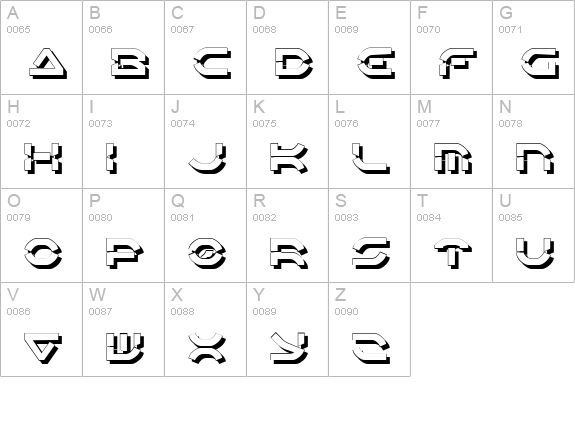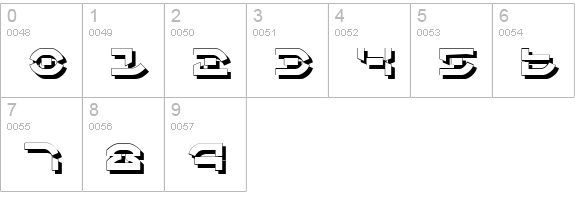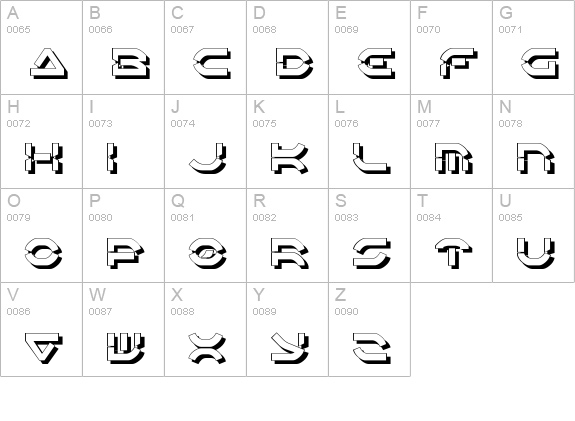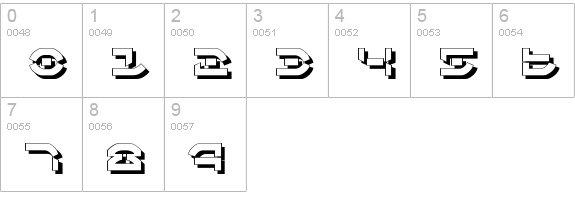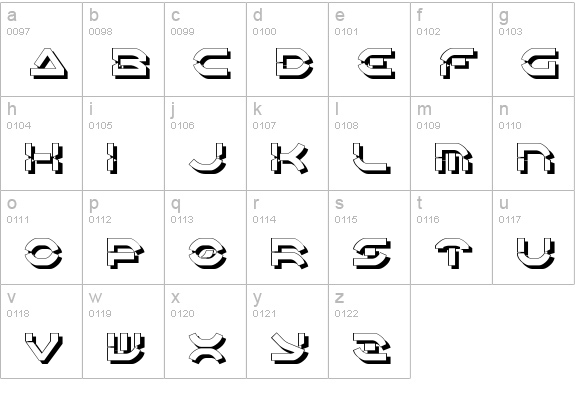
Oberon Deux Shadow is a captivating and elegant font that exudes a sense of mystery and sophistication. Its intricate design features delicate shadows that add depth and dimension to each letter, creating a stunning visual impact. This font is perfect for adding a touch of drama to your designs, whether you're creating invitations, posters, or branding materials. What sets Oberon Deux Shadow apart is not only its striking appearance but also the fact that it is available for free download at FontsMarket.com. This means that you can easily access this premium font without having to worry about any costs. With Oberon Deux Shadow, you can elevate your projects with a touch of luxury and style, all without breaking the bank. Download this exquisite font today and let your creativity shine.